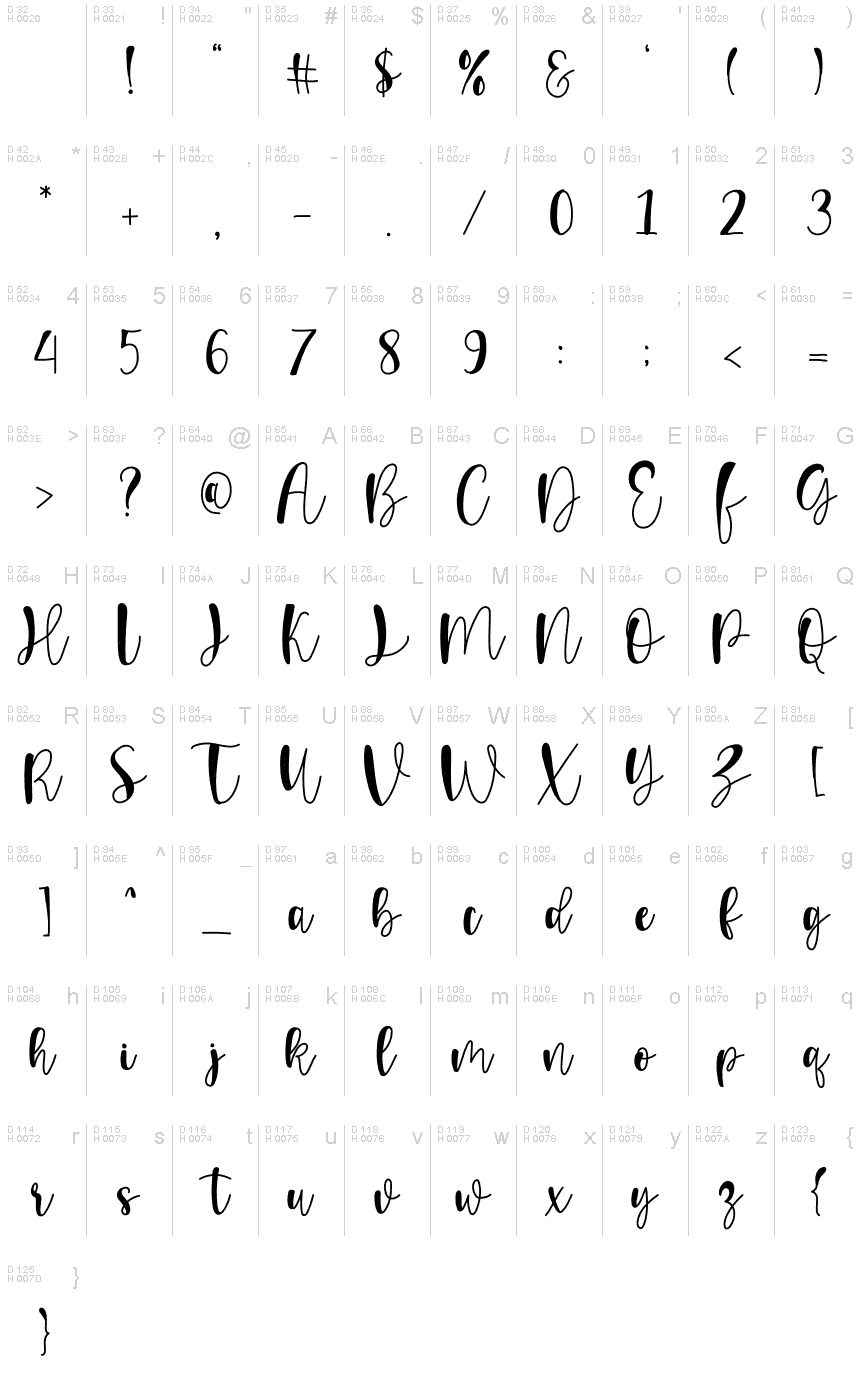
Sweetheart
Sweetheart is a stunning semi-bold font designed by Belina Studio that will make your text look like it was written by hand. With its beautiful handwritten style, Sweetheart brings warmth and personality to any project. This versatile font is perfect for invitations, greeting cards, logos, branding materials, and more. Its unique character adds a touch of charm and elegance to everything it touches. The semi-bold weight of this font makes it easy to read while still retaining its delicate beauty. Use Sweetheart in your next project to create an unforgettable impression with your audience.